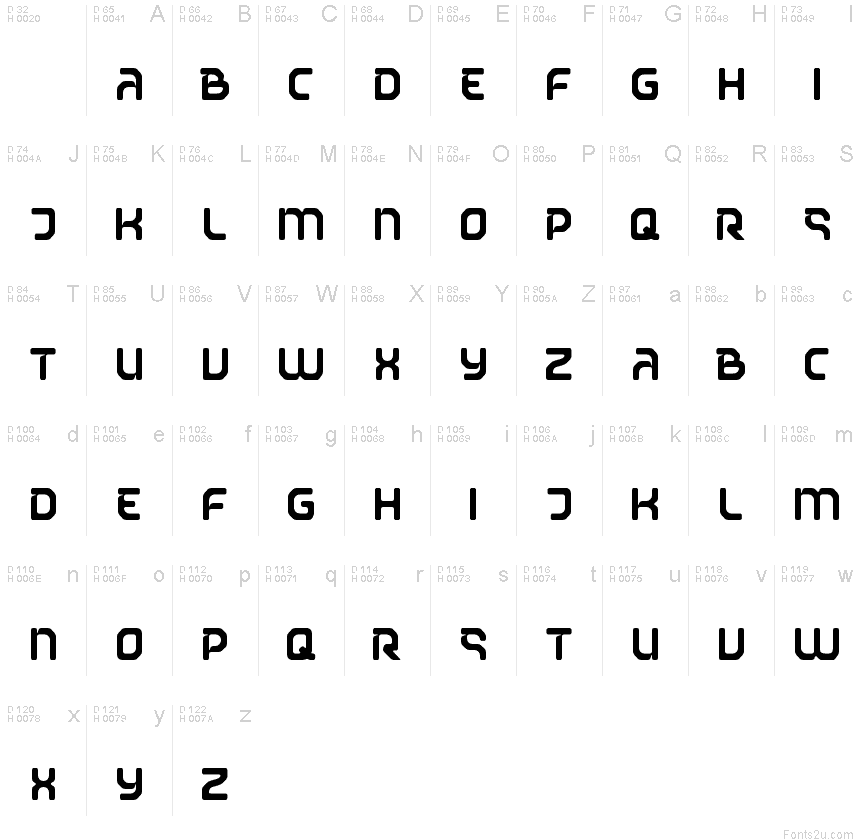
StreetMovementRounded-Bold
Feel free to use this font created custom for the Street Movement logotype.
It's my plan to develop the font with more characters and symbols.